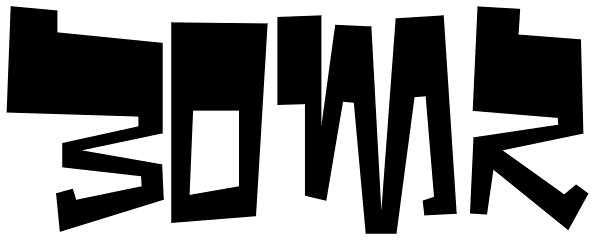
Bomr
Bomr was inspired by freight train graffiti. Huge top left serifs on the capitals give Bomr extra flare. Mix it up with capitals in the middle of a word or go totally nuts and mix upper and lower case for added impact. In OpenType savvy...